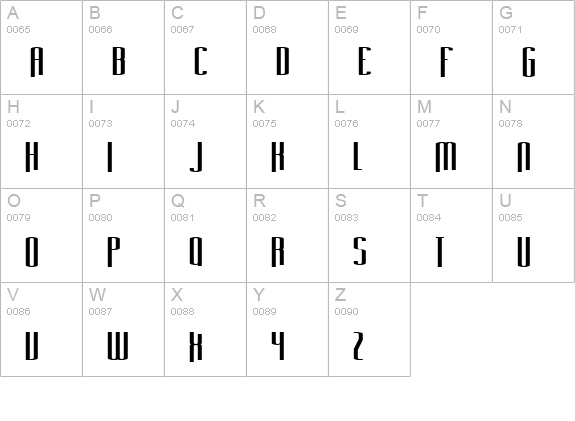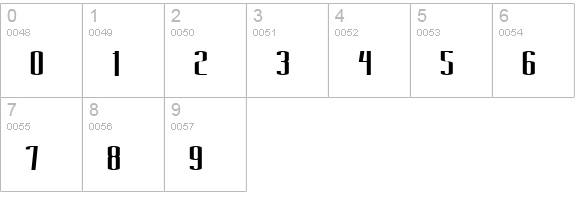
Long Cool Grandma font is a stylish and elegant typeface that exudes sophistication and charm. With its elongated letters and cool demeanor, this font is perfect for adding a touch of class to any design project. Whether you're working on invitations, branding, or social media graphics, Long Cool Grandma font will make your text stand out. The best part? Long Cool Grandma font is completely free! You can easily download this font from FontsMarket.com and start using it in your projects right away. Don't miss out on the opportunity to add a touch of elegance to your designs with this stunning and versatile font.